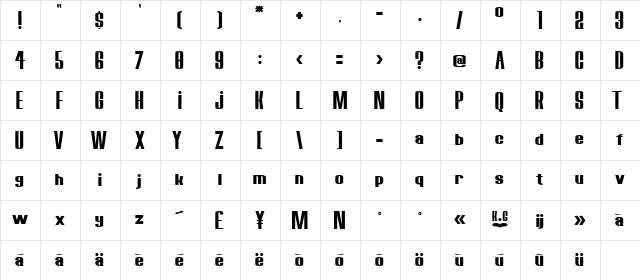
Bored Robots KG Normal Font Preview
Bored Robots KG Normal
Design Context for Bored Robots KG Typeface
Bored Robots KG takes a measured approach to typography — its balanced proportions and neutral character make it a reliable workhorse for both digital and print work.